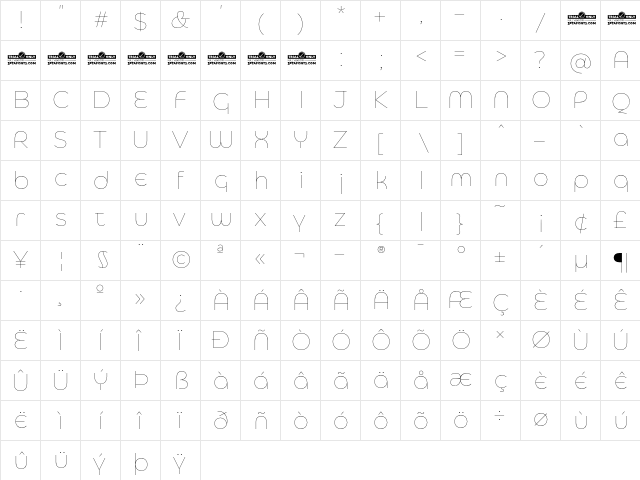
Eastman Alternate Trial Thin
| Foundry | Zetafonts |
| Designer | Francesco Canovaro |
Design Context for Eastman Alternate Trial Typeface
Eastman Alternate Trial is a composed and adaptable typeface that performs quietly and consistently across a wide range of design contexts. The delicate stroke weight brings airiness and refinement to layouts.